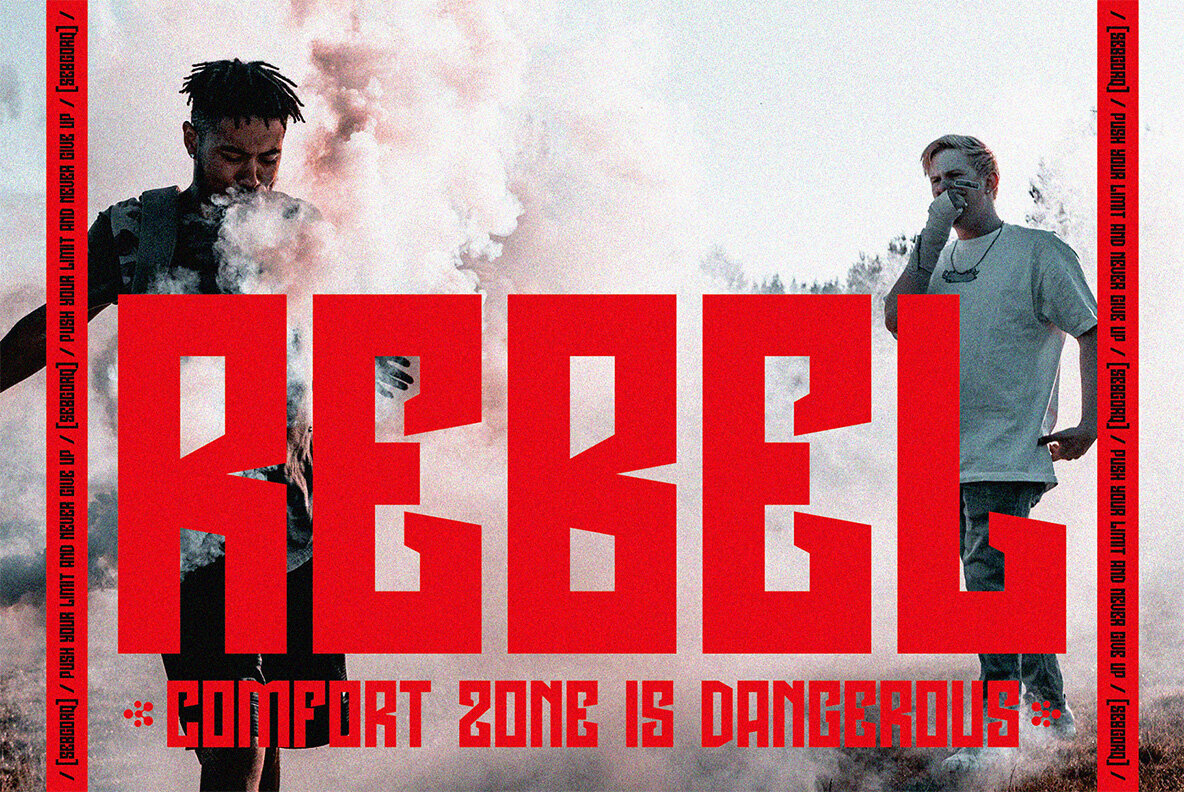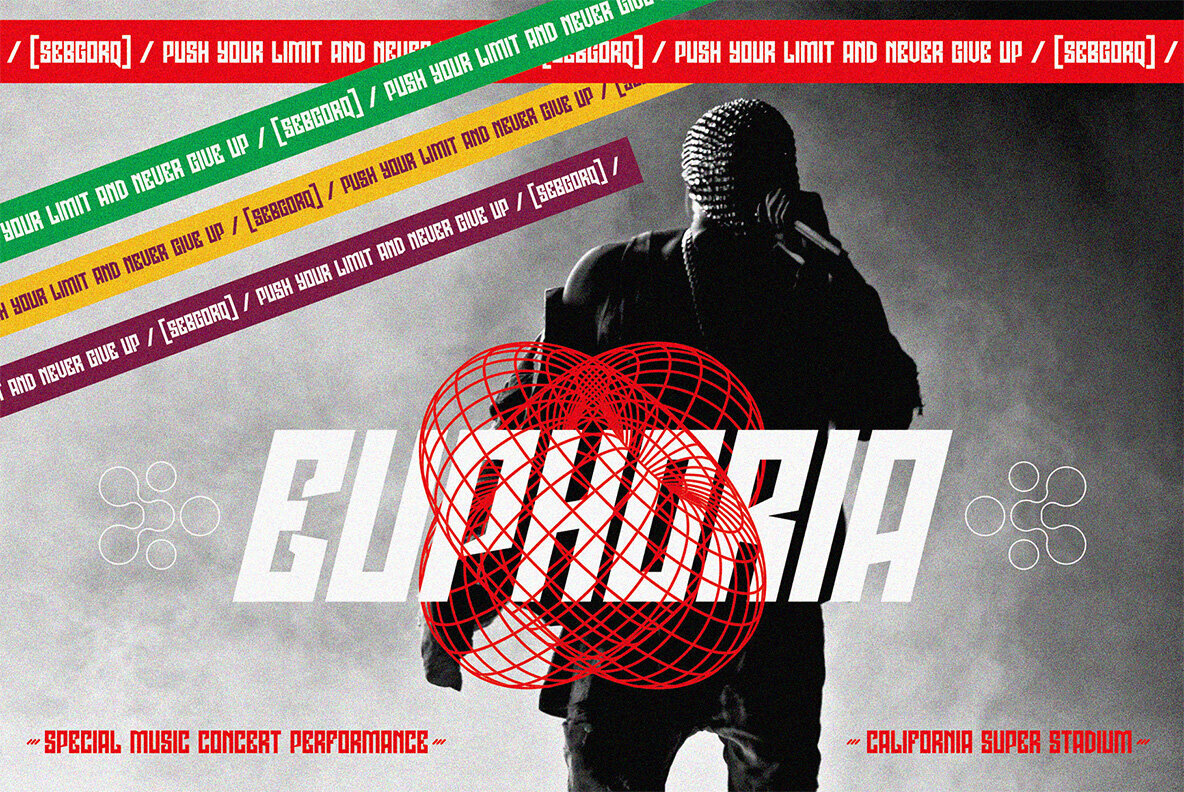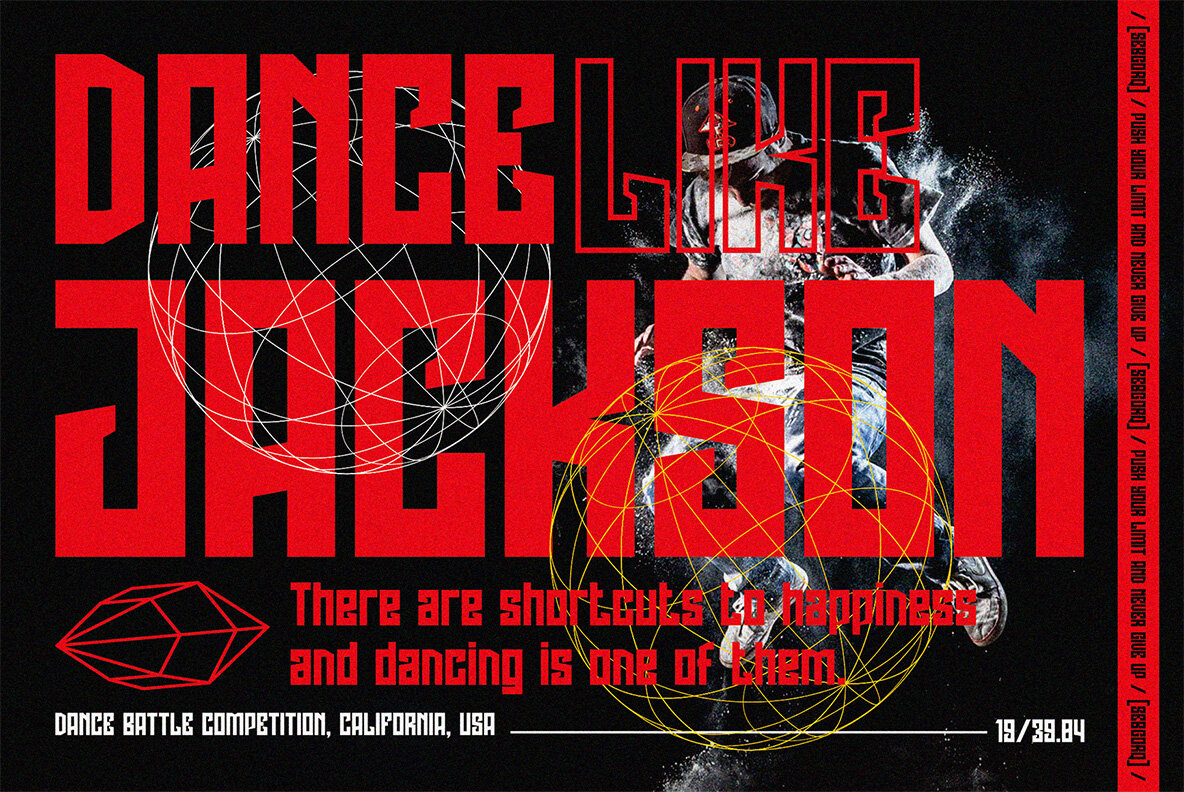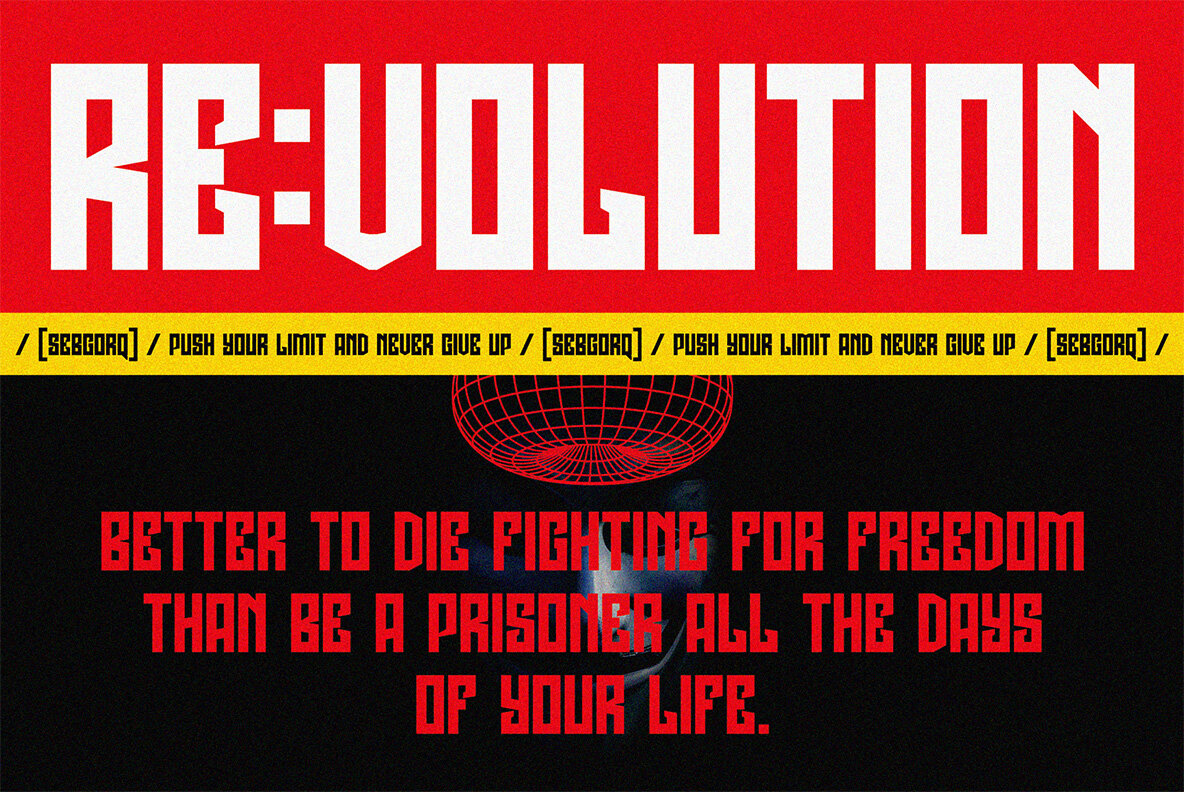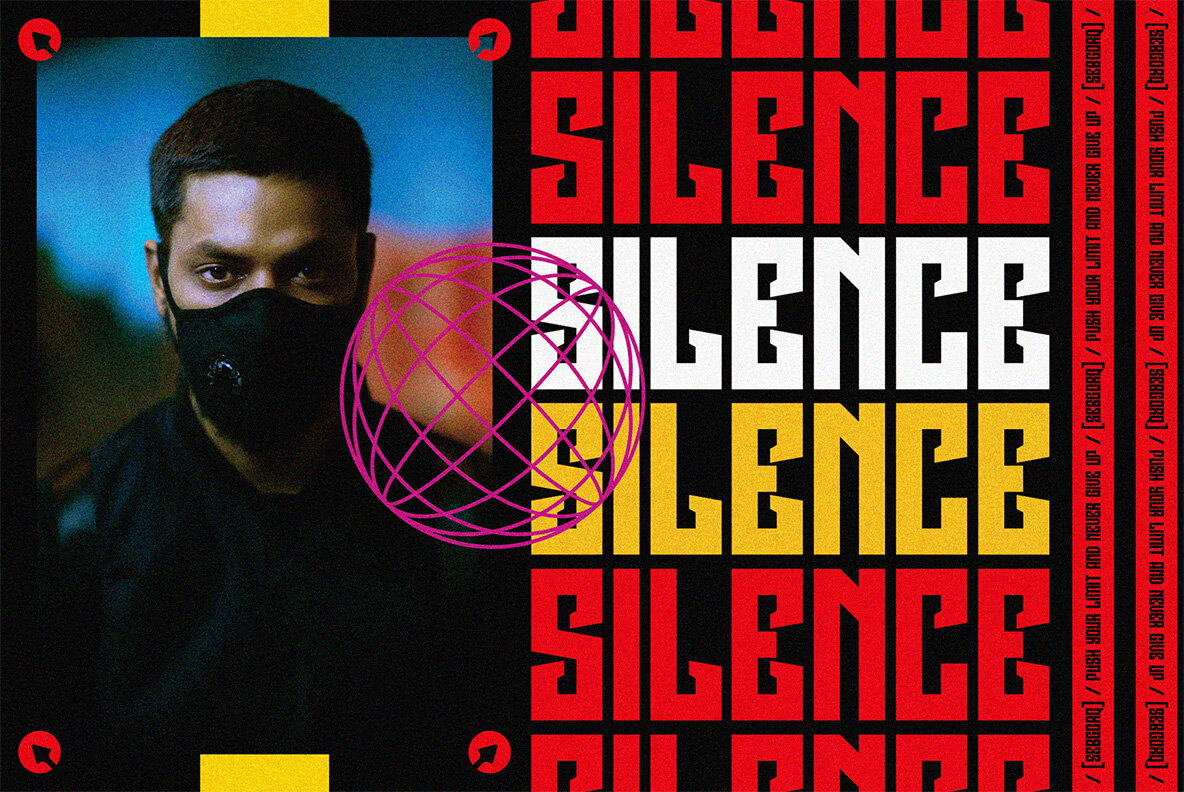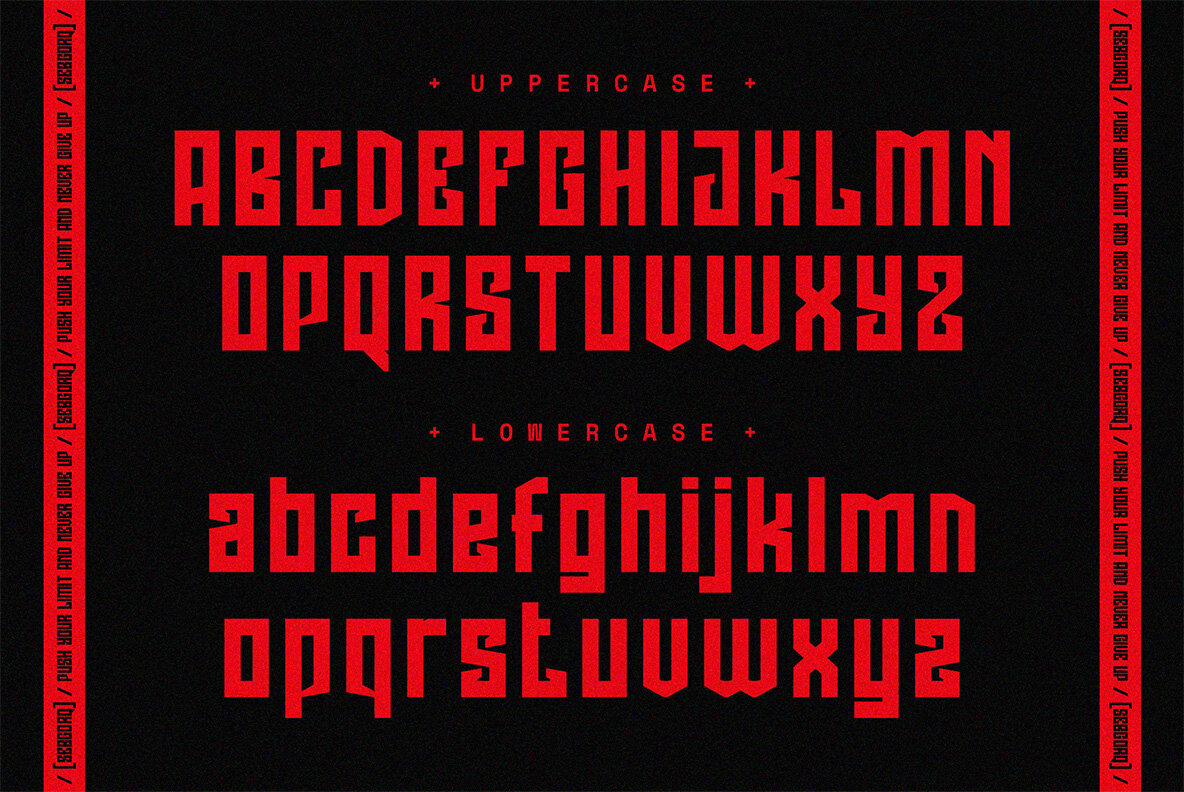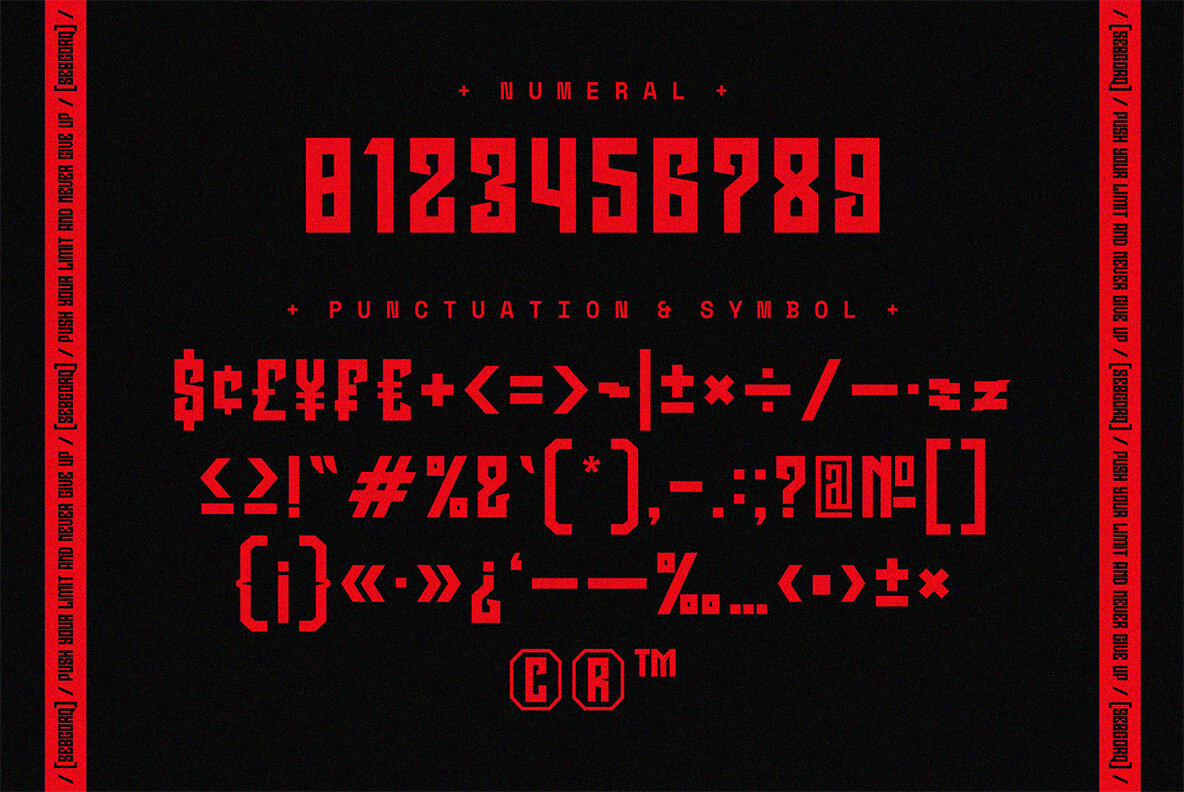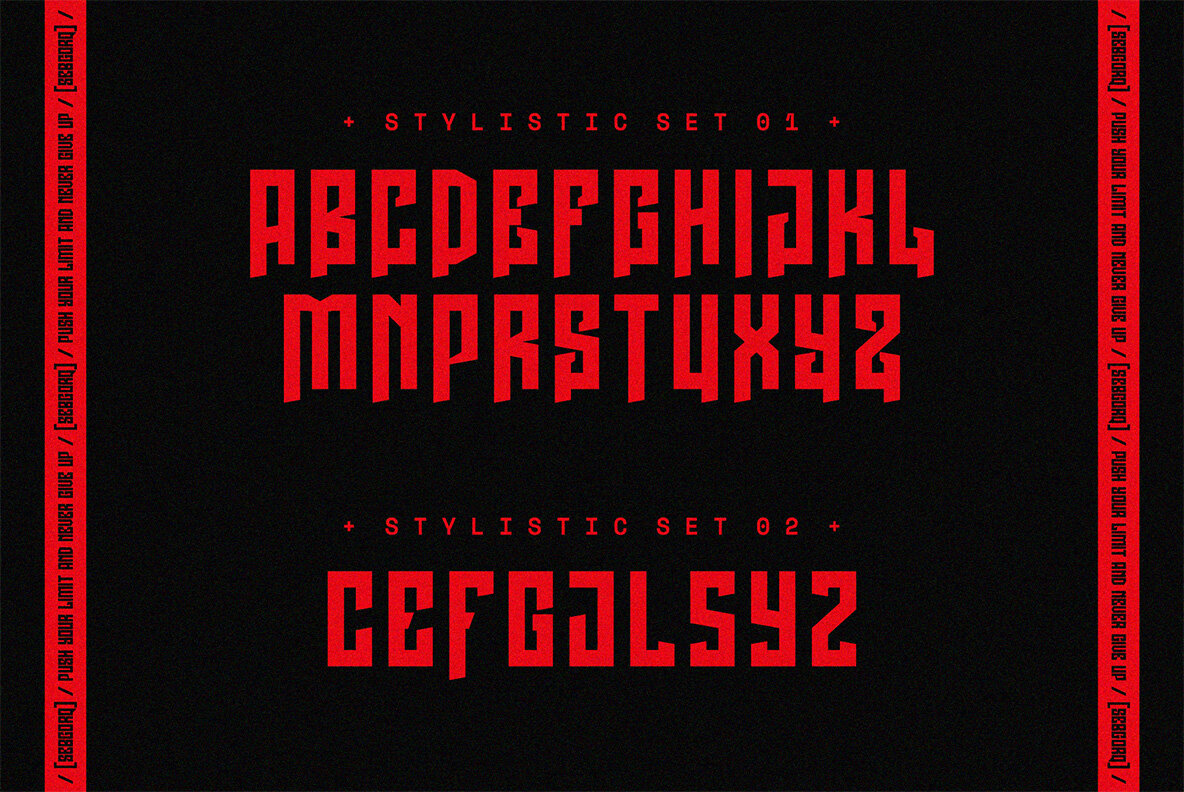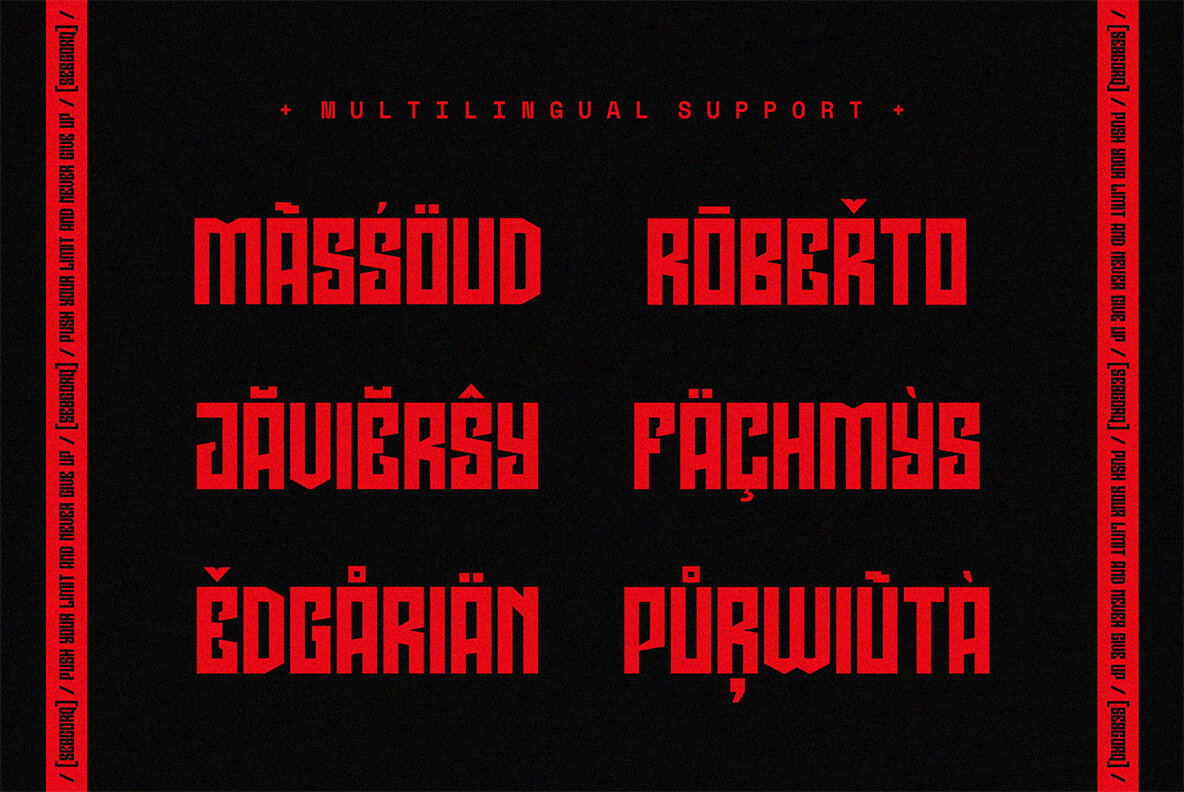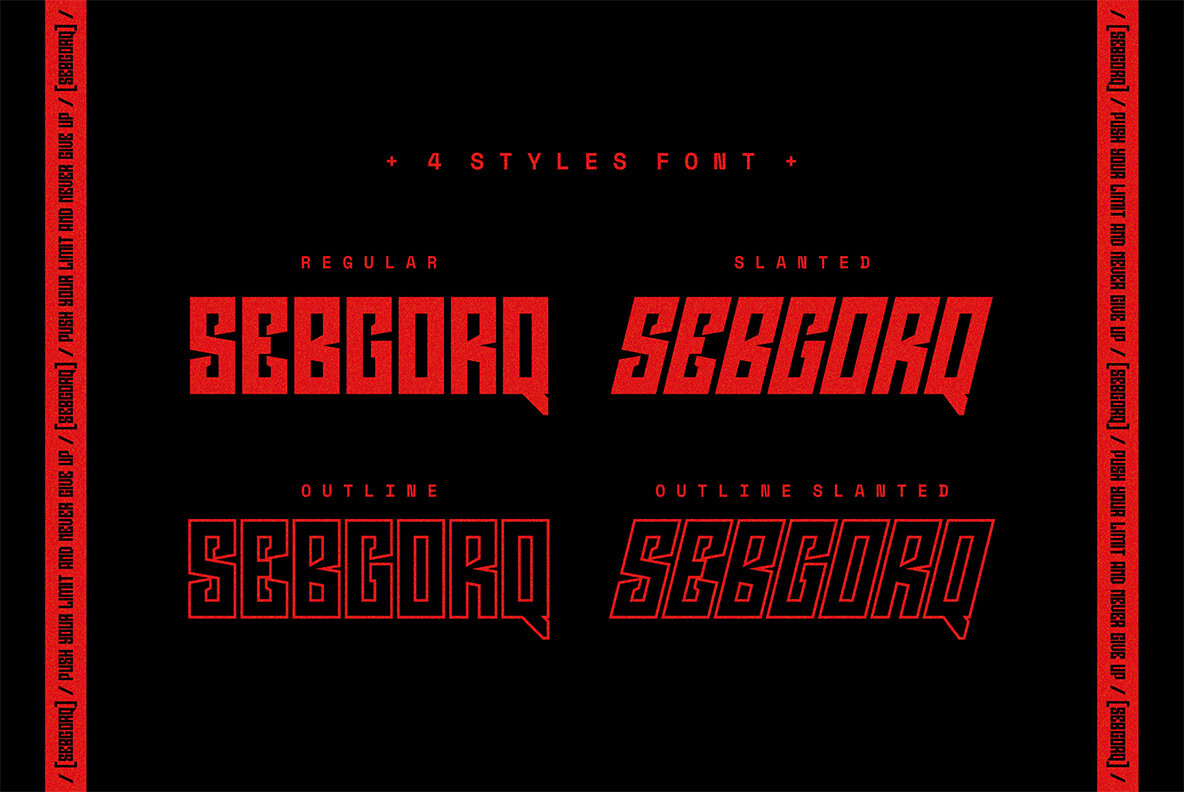
NCL Sebgorq Font
NCL Sebgorq Regular
NCL Sebgorq Outline
NCL Sebgorq OutlineSlant
NCL Sebgorq Slant
NCL Sebgorq is a modern urban display font. Masterfully designed to become a true favorite, this font has the potential to bring each of your creative ideas to the highest level! It was purposely crafted to be used in large point sizes, although it doesn’t lose its magic in small point sizes. It is perfect for wedding, headline, billboard, magazines, website, titles, poster, branding, and logos. No matter the topic, this font will be an incredible asset to your fonts’ library, as it has the potential to elevate any creation. With this beautiful font, absolutely you can make your project stand out from the rest. 4 Style: Regular, Slanted, Outline, Outline Slanted Contains 373 Glyphs for Each Style and 1508 Glyphs for Total Uppercase & Lowercase Numeral, Punctuation & Symbols Stylistic Set 1-2 Multilingual Support